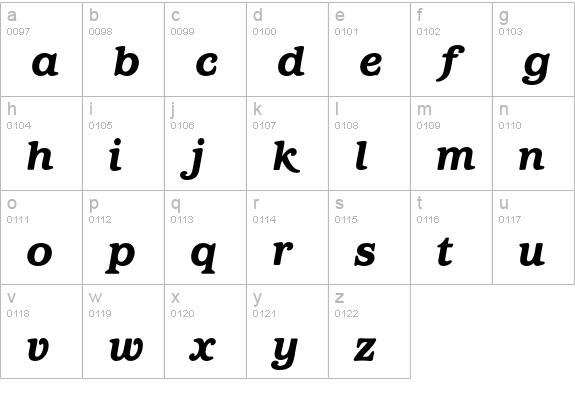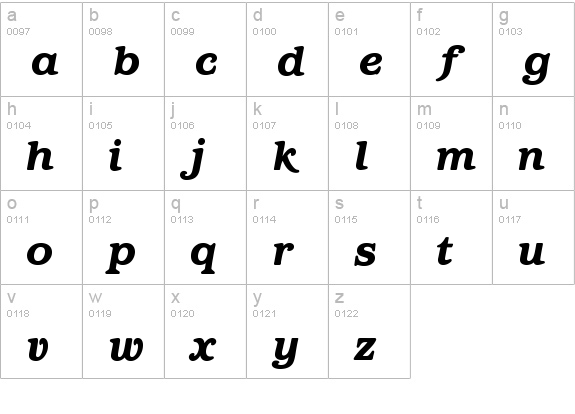
Barcelona* Heavy Italic is a heavy, high-impact, italic variant in the Barcelona* typeface family \xE2\x80\x94 well suited to high-impact headlines, posters, and display advertising.
Barcelona Heavy Italic font is a bold and striking typeface that exudes a sense of strength and confidence. Its heavy weight and italic design make it perfect for creating eye-catching headlines, titles, and branding materials. The font's sleek and modern look gives it a sophisticated edge, making it ideal for projects that require a touch of elegance. What sets Barcelona Heavy Italic font apart is not only its powerful aesthetic but also its versatility. Whether used for print or digital designs, this font commands attention and adds a touch of sophistication to any project. And the best part? Barcelona Heavy Italic font is available for free download at FontsMarket.com. So go ahead and elevate your designs with this impressive and impactful typeface today!